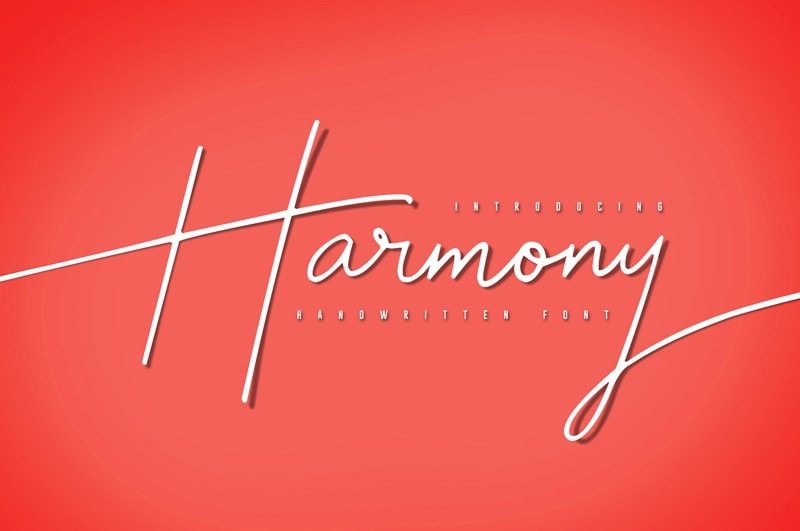
harmony
Experience the Sleek Design of Harmony Font
Harmony Font, created by renowned designer Alex Smith in 2022, showcases a perfect blend of contemporary style and versatile functionality. This modern typeface is ideal for web design, branding, promotional materials, and any other application that demands clarity and elegance. Its clean lines and balanced proportions make Harmony a go-to choice for designers seeking a sophisticated yet accessible font.
The Creative Journey of Harmony Font
Inspired by the desire for a versatile typeface that merges clarity with style, Harmony Font was developed to meet the needs of modern designers. Alex Smith’s attention to detail and user-friendly design philosophy leads to a font that not only looks great but also performs well across various applications.
Ideal Uses for Harmony Font
Whether creating a sleek website, a captivating logo, or professional marketing materials, Harmony Font stands out. It is particularly effective for corporate branding, editorial design, and modern artwork, making it a valuable asset for any designer’s toolkit.